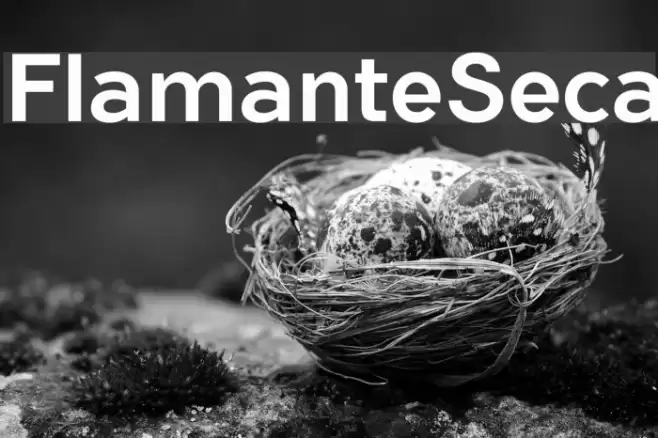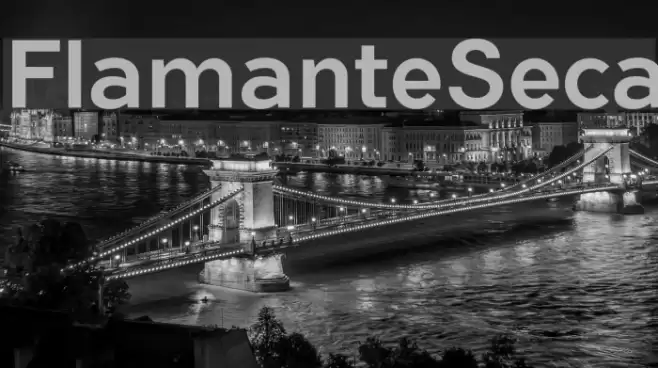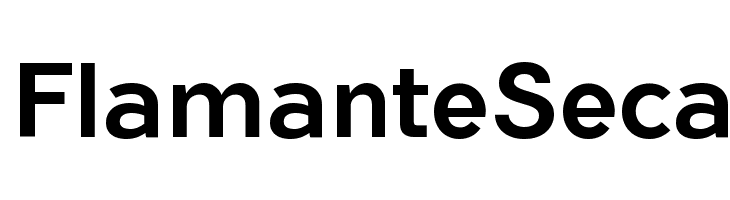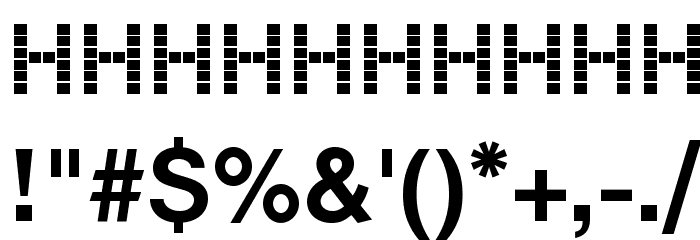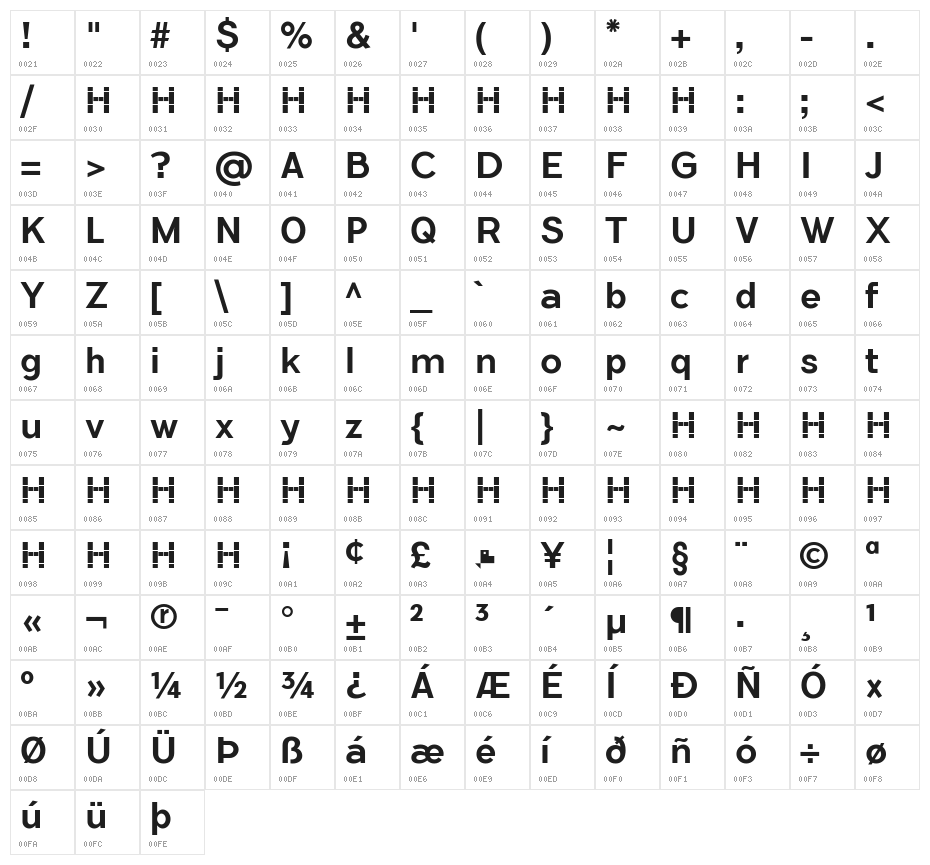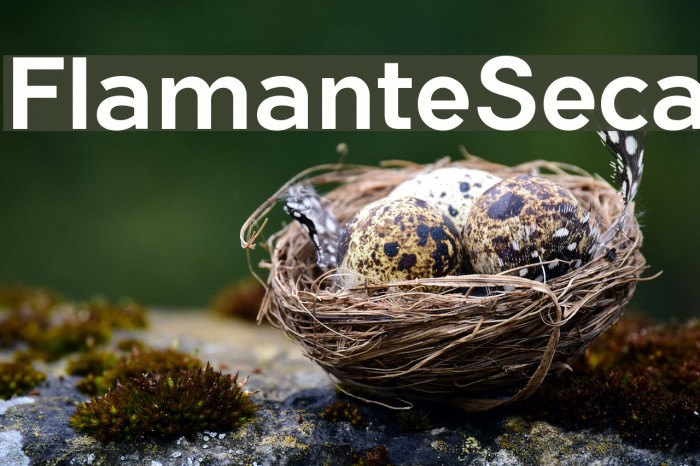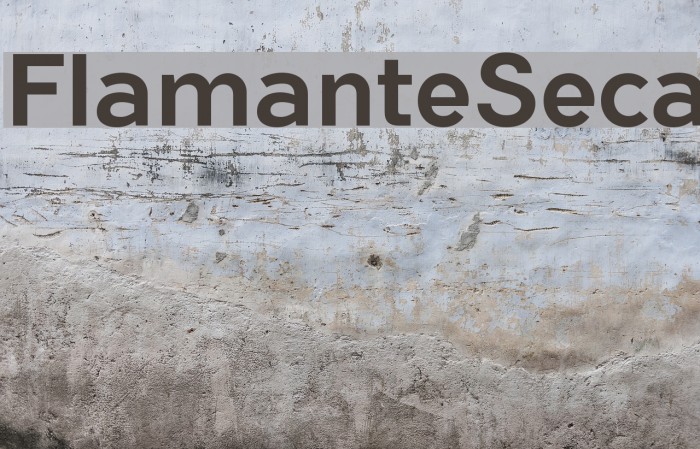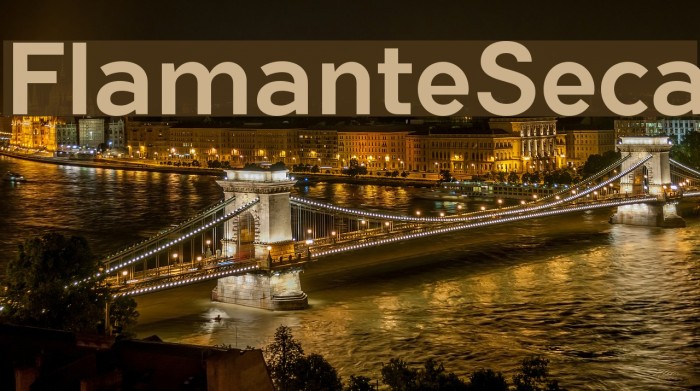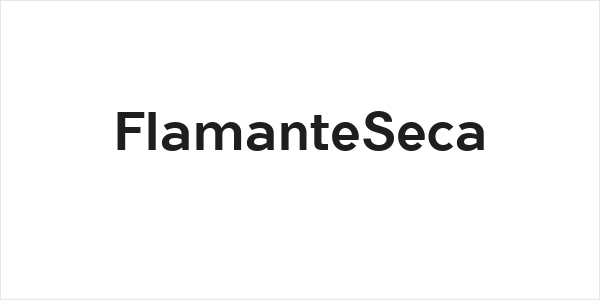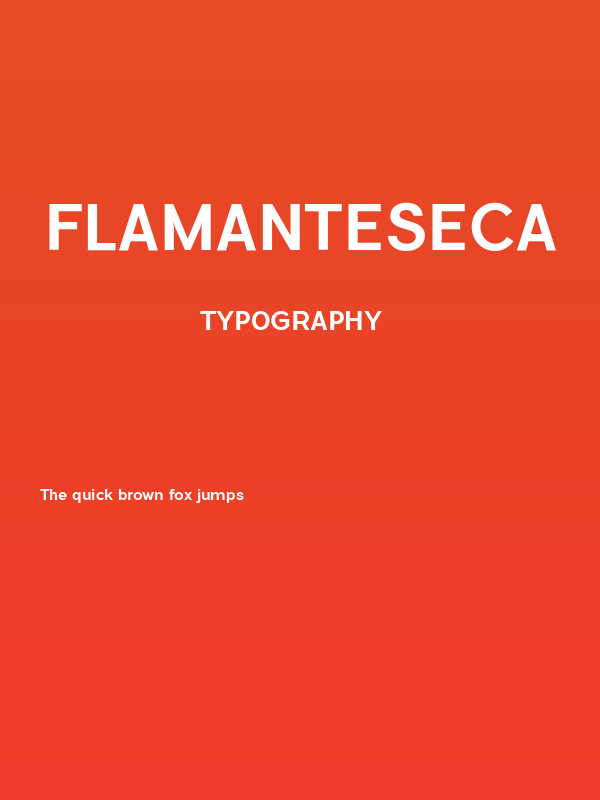
FlamanteSeca Font
FlamanteSeca Description
This font features a clean and modern sans-serif style, characterized by its simplicity and clarity. The uppercase and lowercase letters are well-proportioned, with a uniform stroke width that contributes to its legibility. The characters are slightly rounded, giving a friendly and approachable feel. The numbers and special characters maintain the same design ethos, ensuring consistency across all glyphs. This font is versatile, suitable for both digital and print media, and can be used in a variety of contexts where readability and a contemporary look are desired.
A clean, modern sans-serif font with uniform stroke width and rounded characters from Uncategorized fonts.
- Proposed Projects: Ideal for branding, web design, advertising, and editorial projects where clarity and modernity are key.